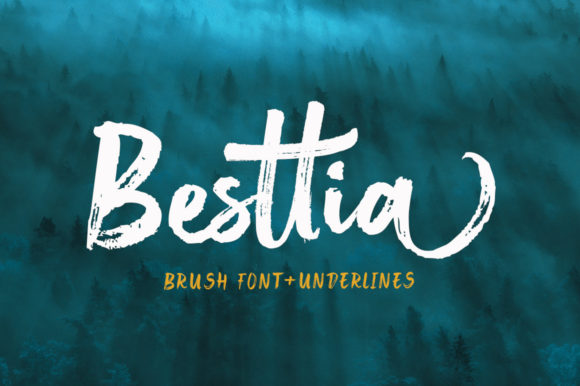
Besttia Font
The Besttia Font family is a stunning collection of flowing, hand brushed script fonts, perfect for adding a touch of elegance and sophistication to any design project. Besttia is PUA encoded, giving you easy access to all of the glyphs and swashes, so you can create beautiful and unique designs with ease.
With its elegant curves and expressive brush strokes, Besttia is perfect for creating eye-catching logos, branding materials, wedding invitations, social media posts, and any other project that requires a touch of handwritten charm. Its versatility makes it a great choice for a wide range of design projects, from elegant wedding invitations to playful social media posts.
Besttia is a must-have for any designer's toolkit. It's the perfect font for adding a touch of personality and style to any project.